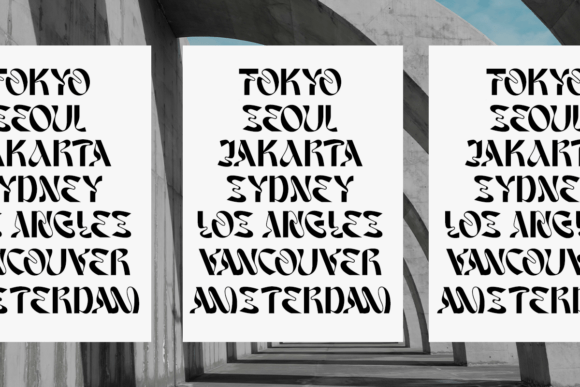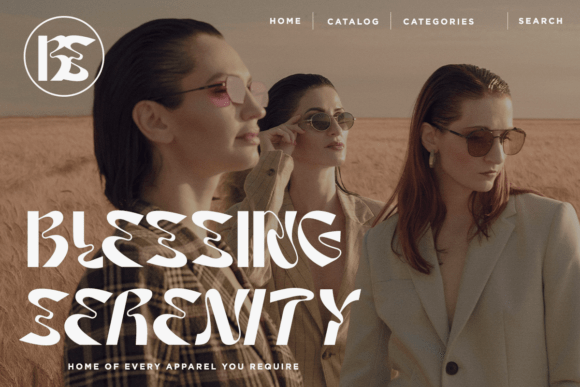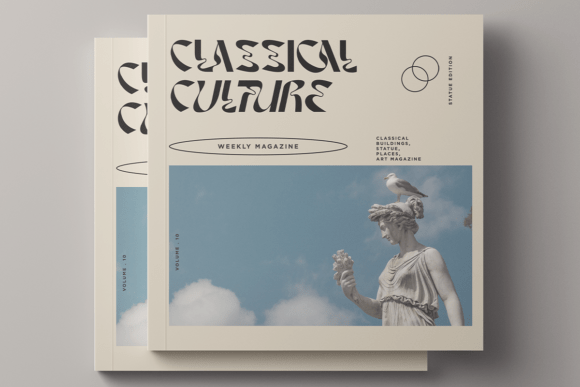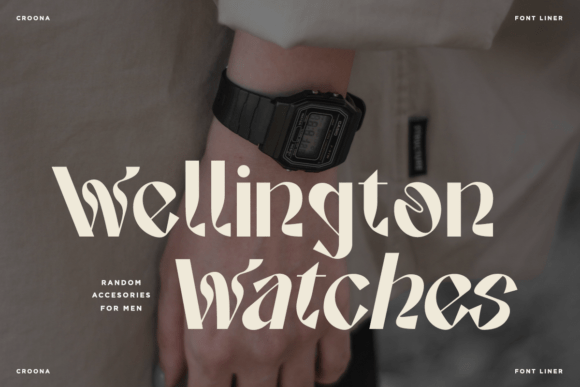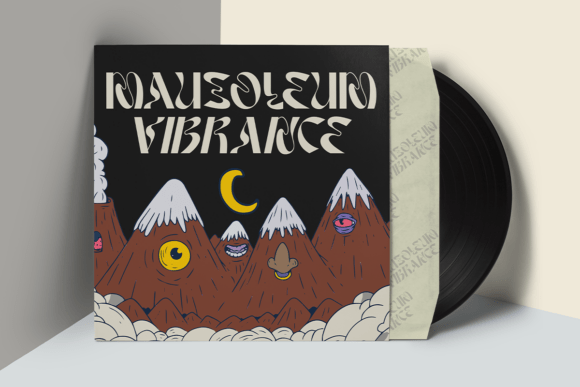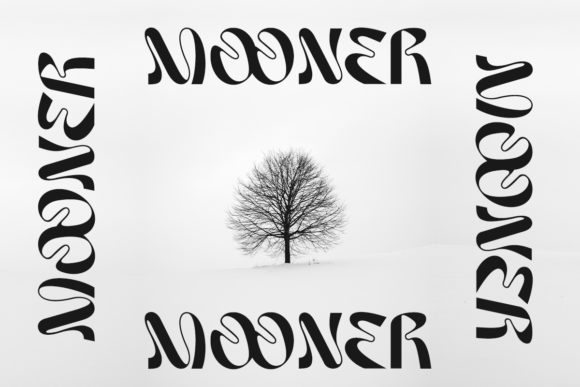
The Joy of Croona Font: A Designer’s New Best Friend
I’ll never forget the time I was working on a project for a children’s book, and I just couldn’t find the right font to match the playful tone of the story. The client wanted something that would appeal to kids and parents alike, but everything I tried seemed either too boring or too over-the-top. That’s when I stumbled upon Croona Font, and let me tell you, it was love at first sight! 😍
Croona is a cute and quirky serif font that adds an incredibly joyful touch to any design. Its unique charm and character make it perfect for creative projects that need a bit of personality. In this article, I’ll share my experience with Croona, including what I love about it, some practical tips on how to use it, and a few similar fonts you might enjoy.
An Honest Review of Croona Font
What I Love About Croona ✨
- Unique and quirky serif design that adds a playful touch to any project 🎉
- Perfect for display text, headings, and titles, where you want to make a statement 📣
- Supports OpenType features, including glyphs and stylistic alternates, giving you plenty of creative options 🎨
- Cute and charming, making it ideal for projects aimed at kids, families, or anyone looking for a fun vibe 👪
- May not be the best choice for body text or long paragraphs, as its quirky design can be overwhelming ⚠️
- Limited availability of condensed or italic versions, which might limit its use in certain projects 📉
The Backstory of Croona Font
Croona Font was designed with one goal in mind: to bring a bit of joy and whimsy to the world of typography. Its creator, a passionate designer with a love for all things cute and quirky, wanted to craft a font that would inspire creativity and playfulness. And I think they succeeded! 🎉
Q: What type of projects is Croona Font best suited for?
A: Croona Font is perfect for creative projects that need a playful touch, such as children’s books, greeting cards, posters, and social media graphics.
Q: Is Croona Font available in different weights or styles?
A: Currently, Croona Font is available in a single weight, but its unique design and OpenType features make it versatile enough for various design applications.